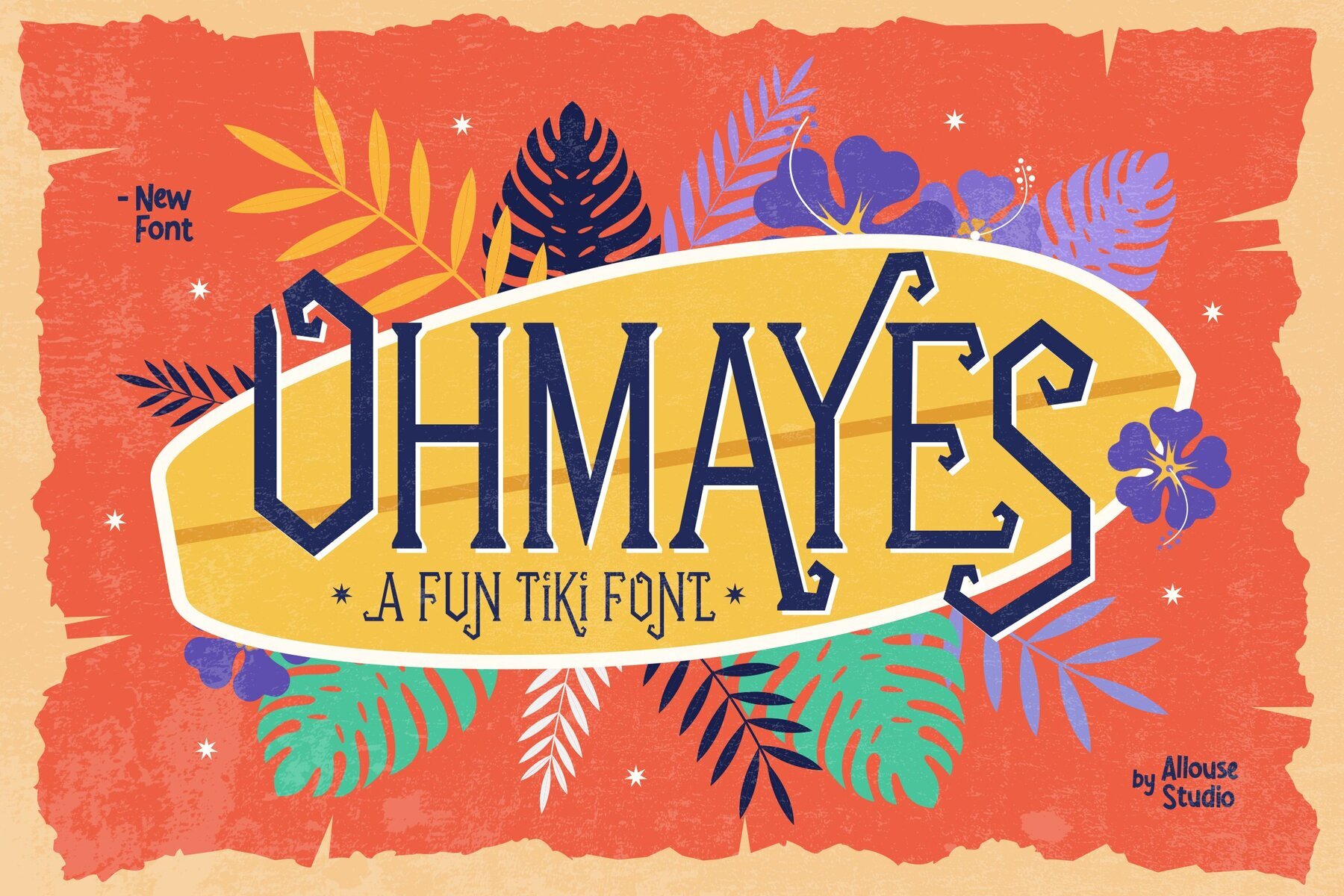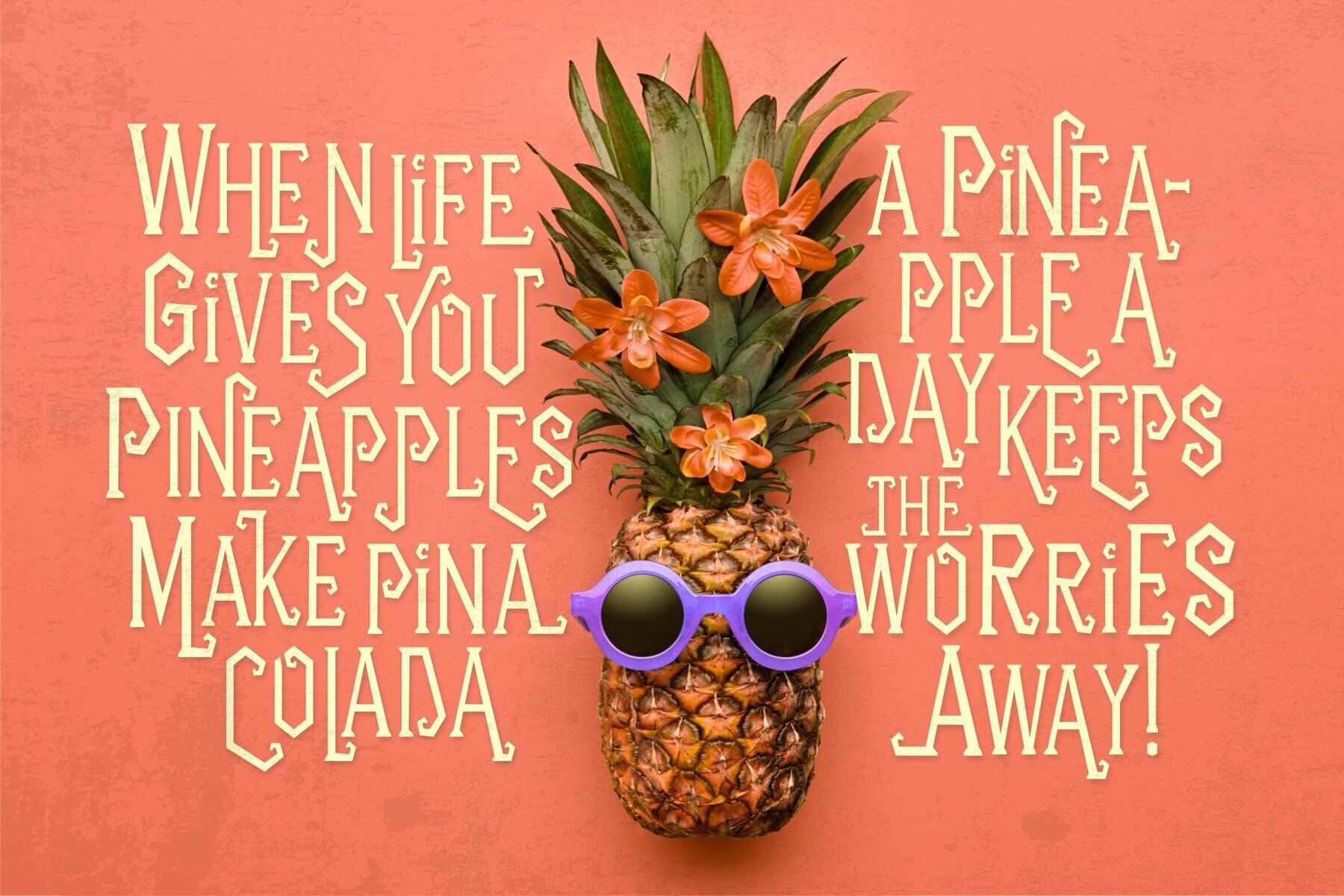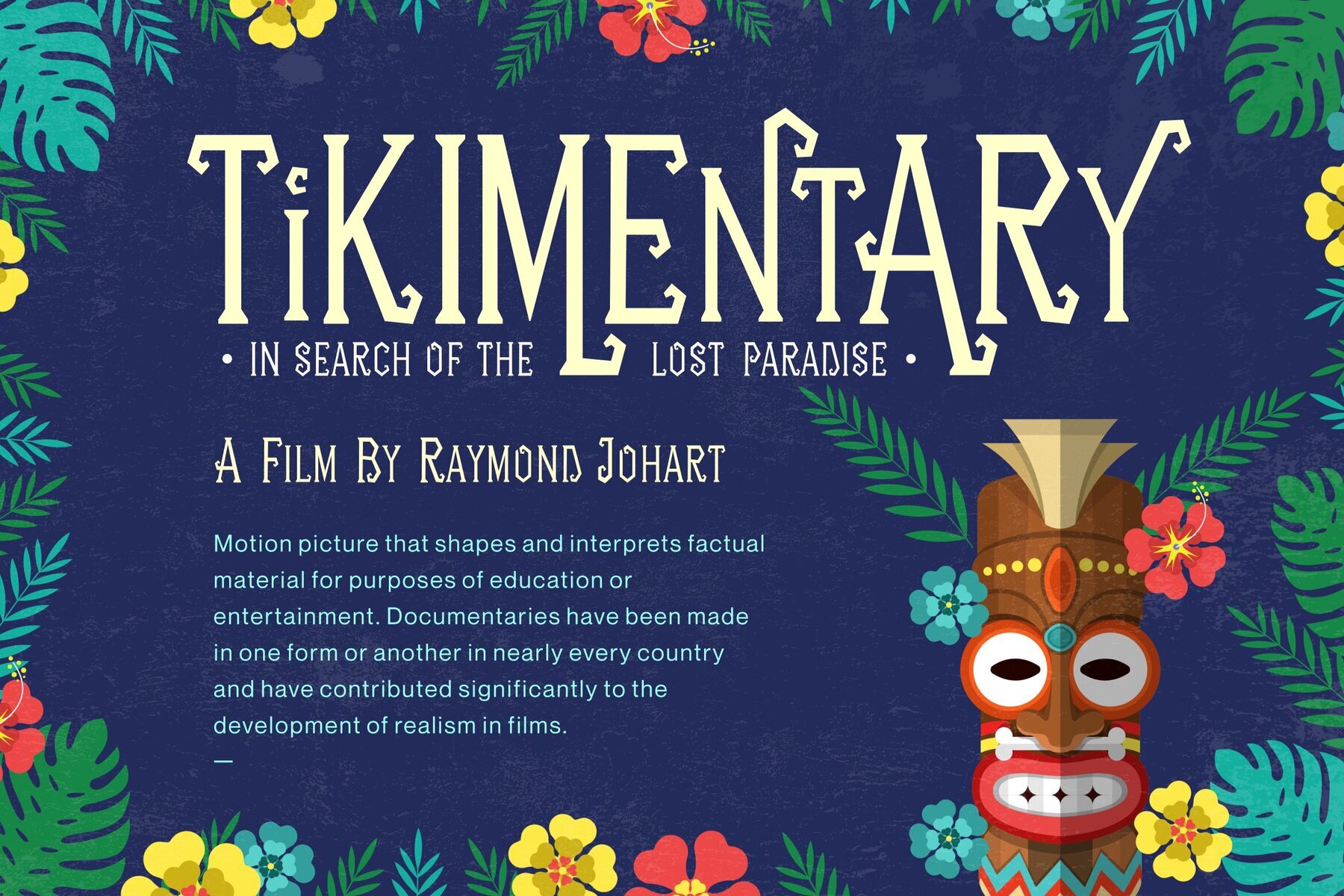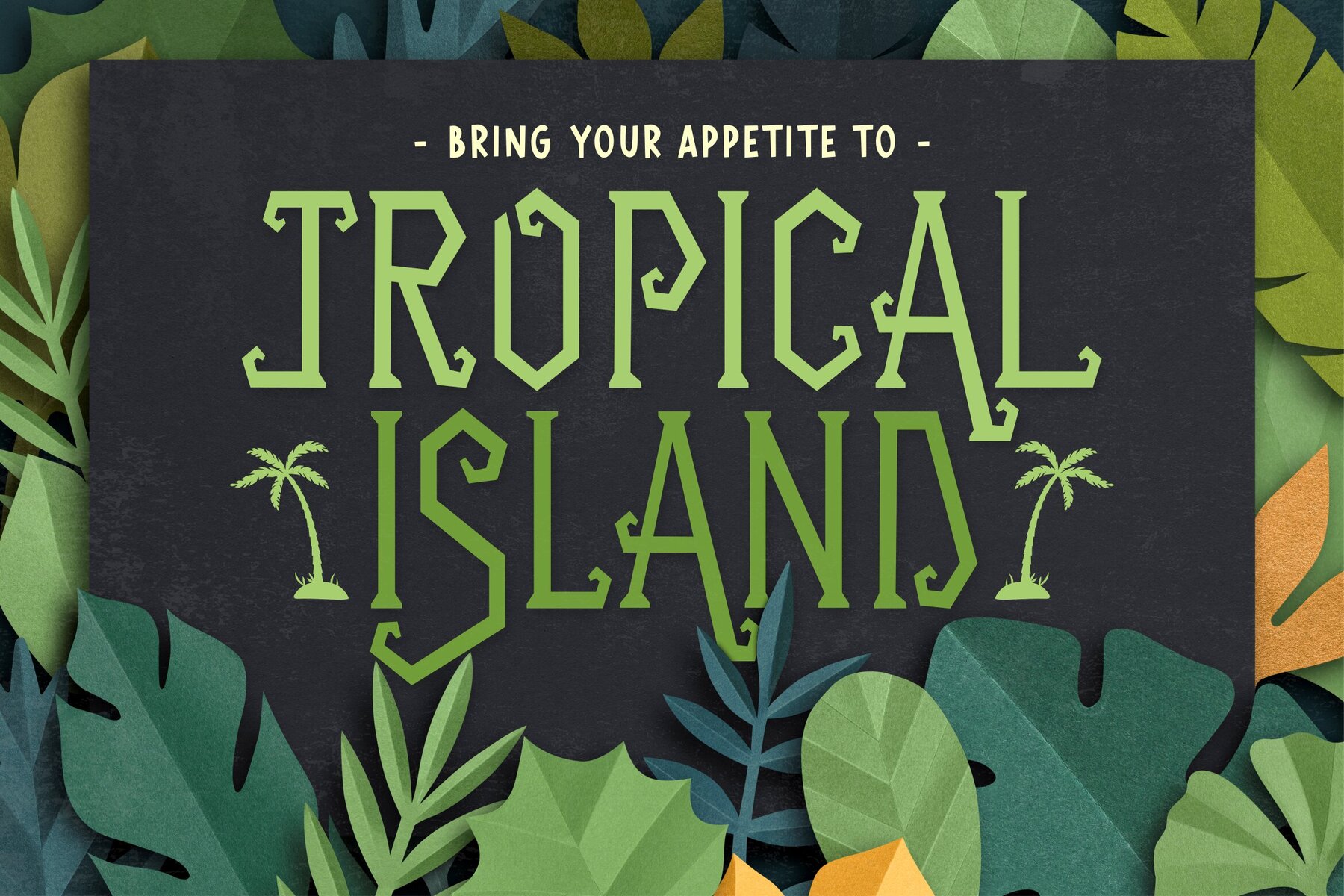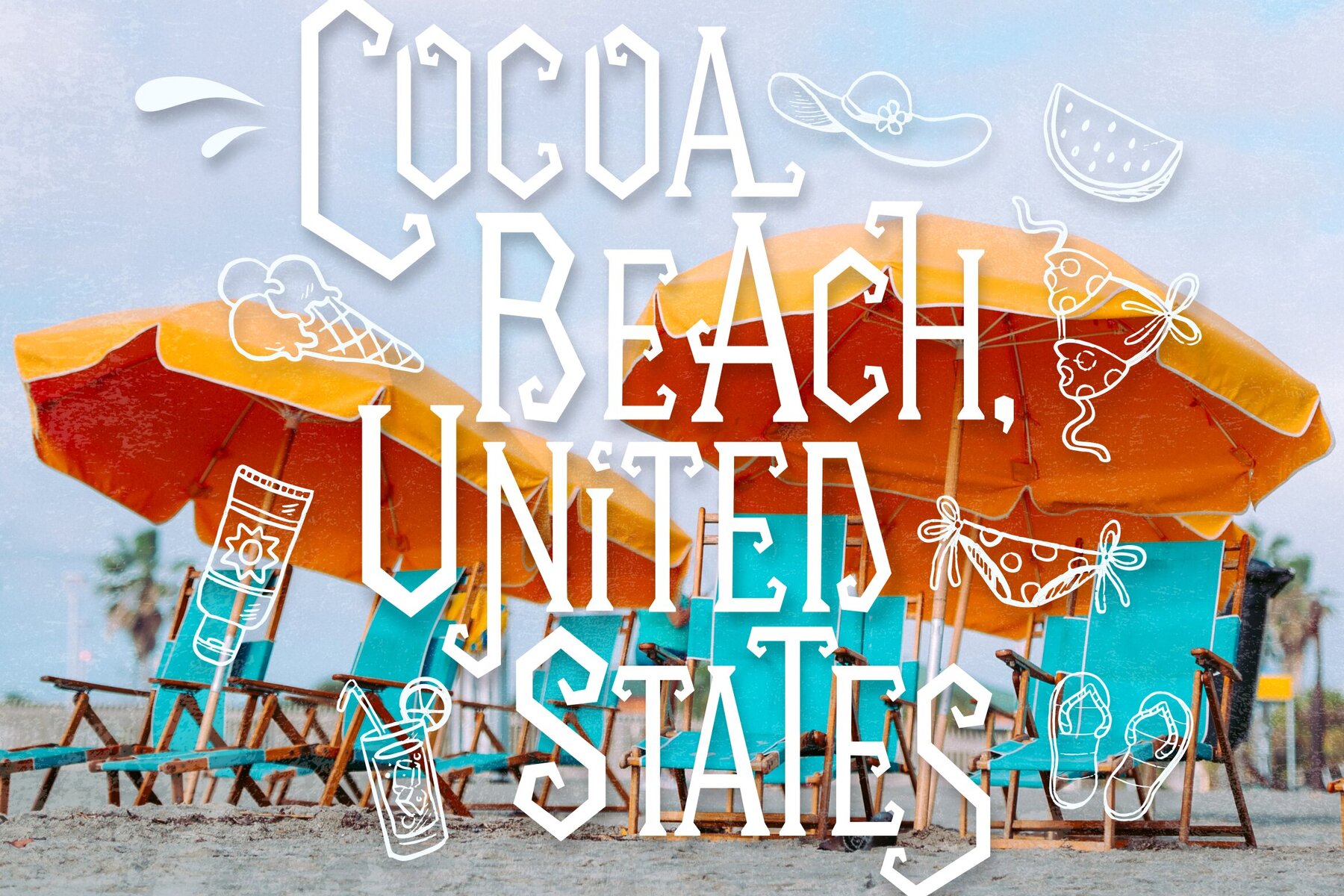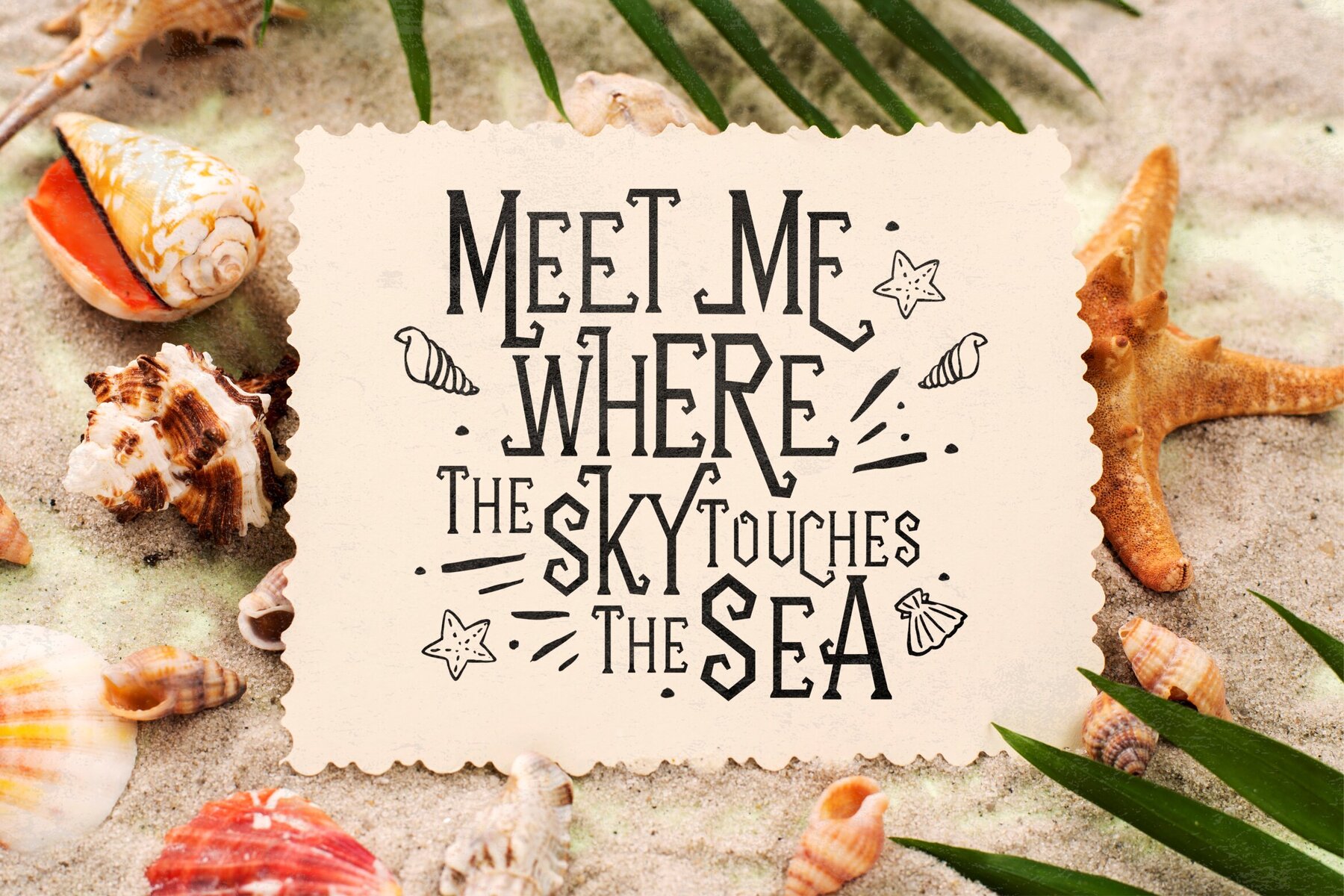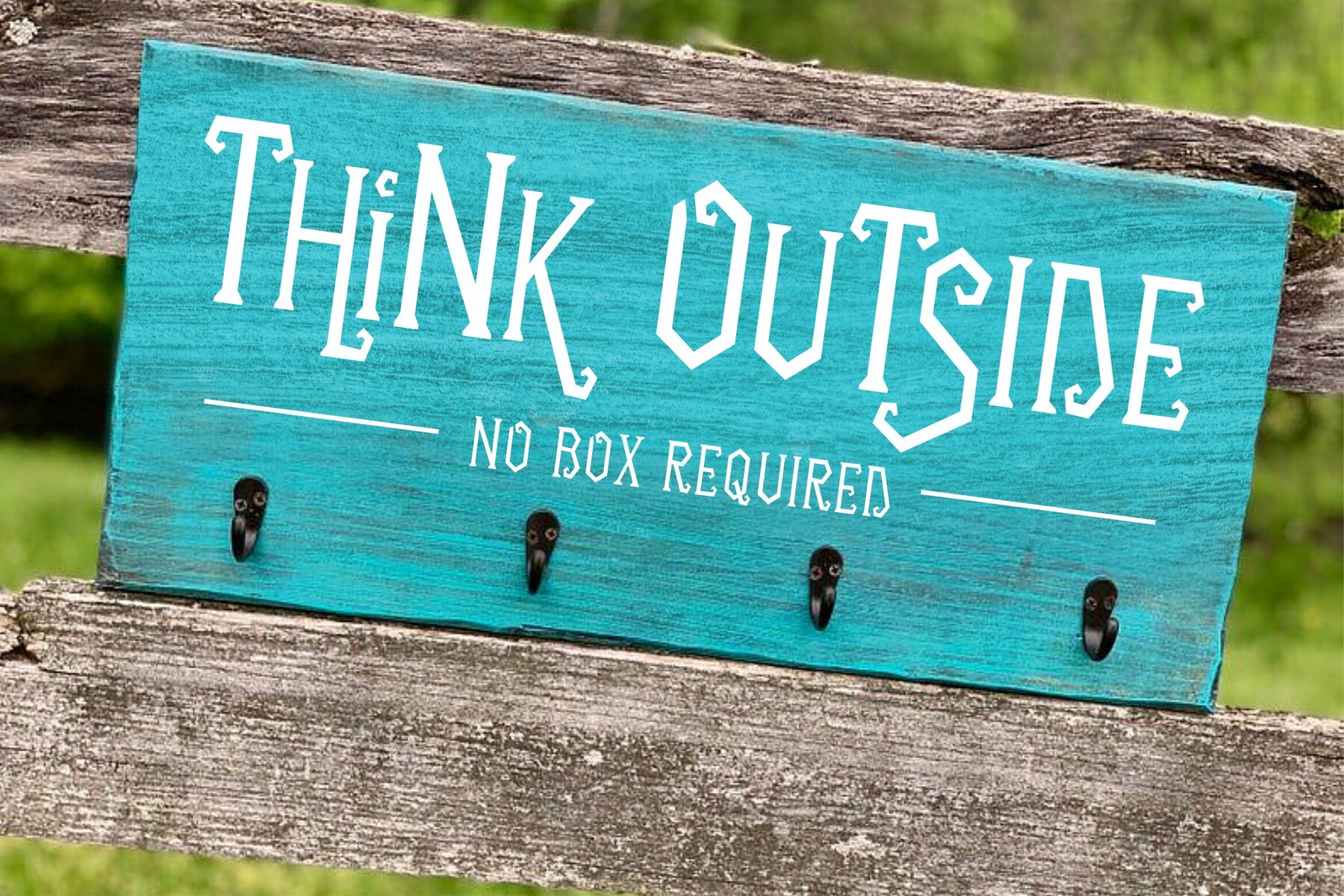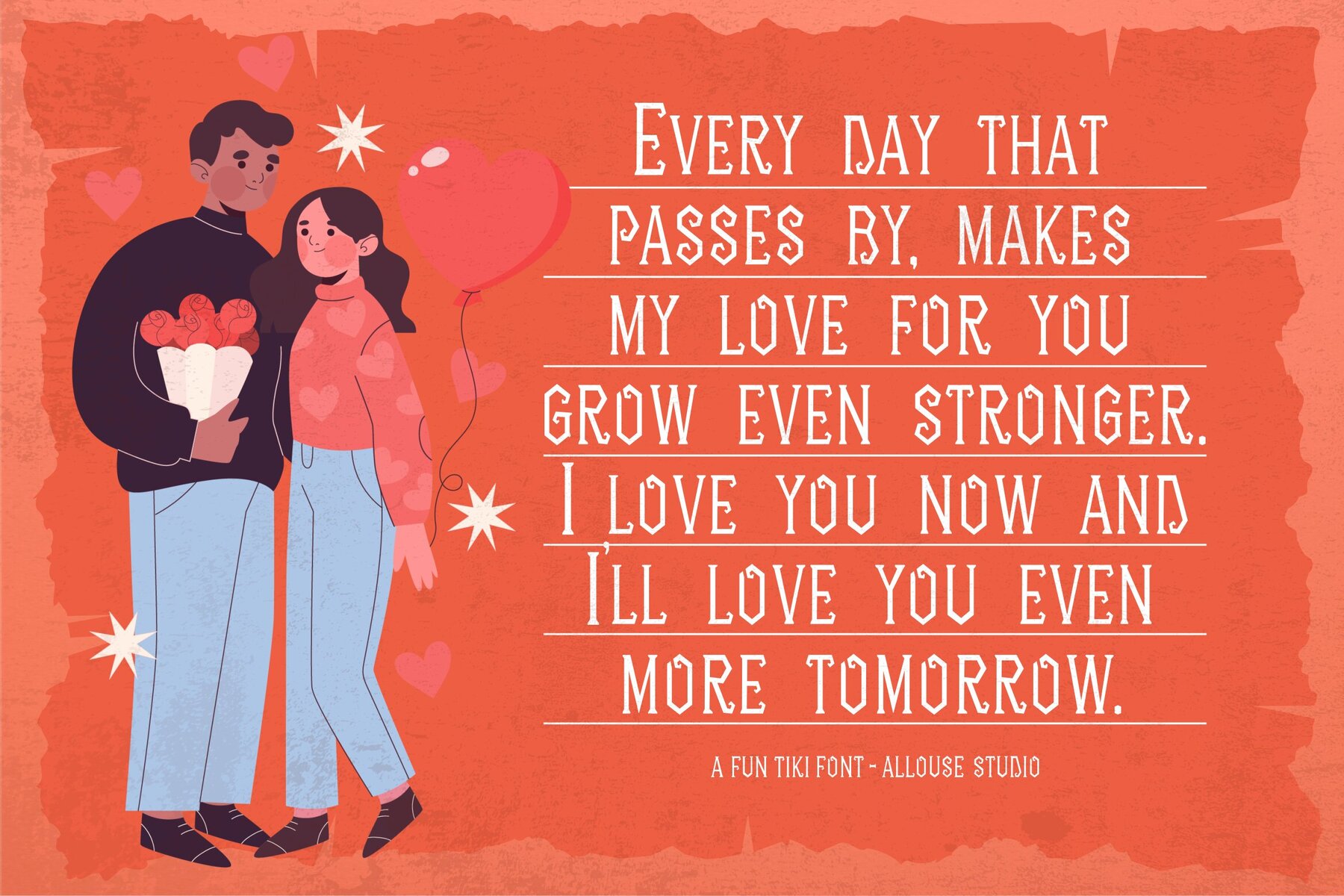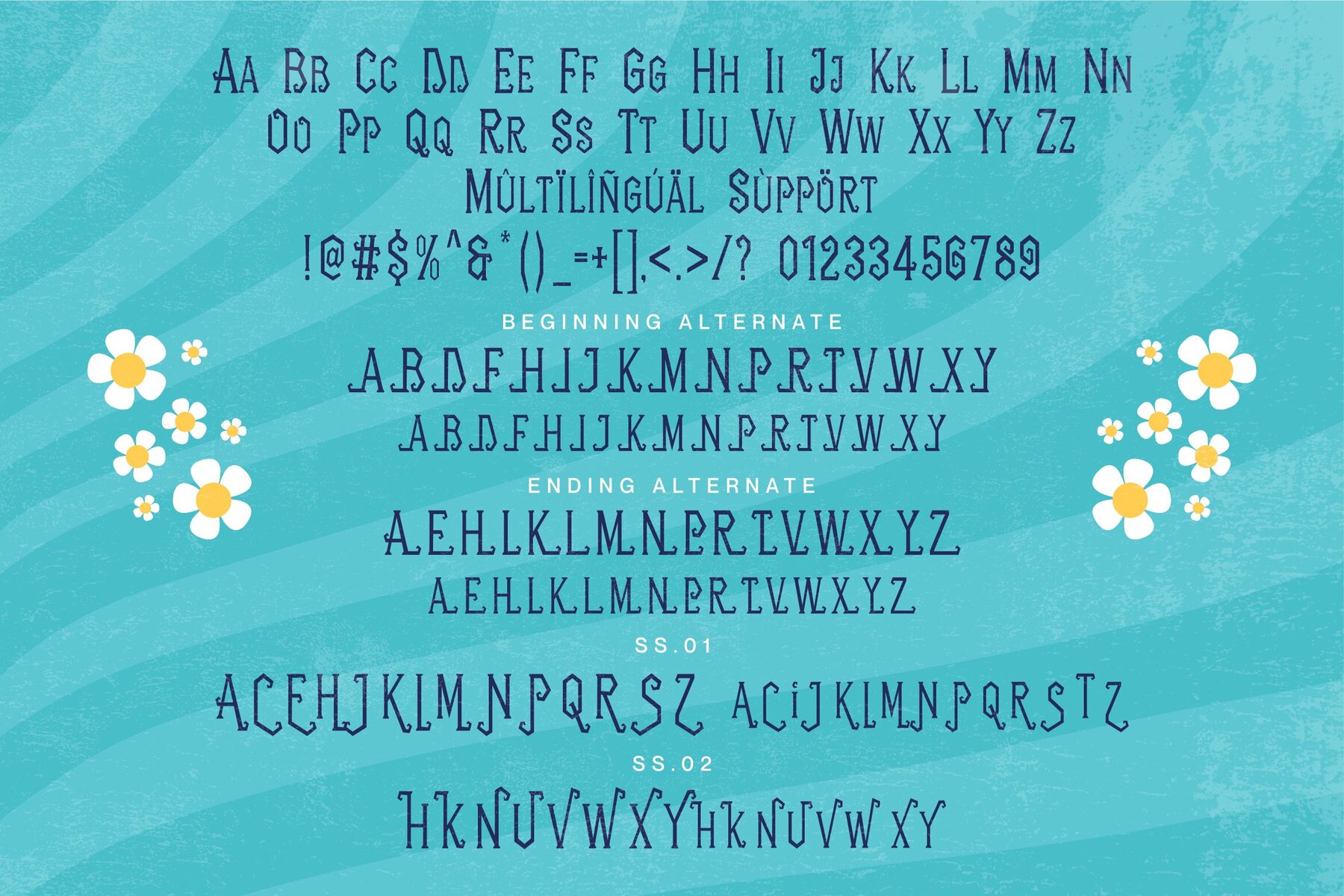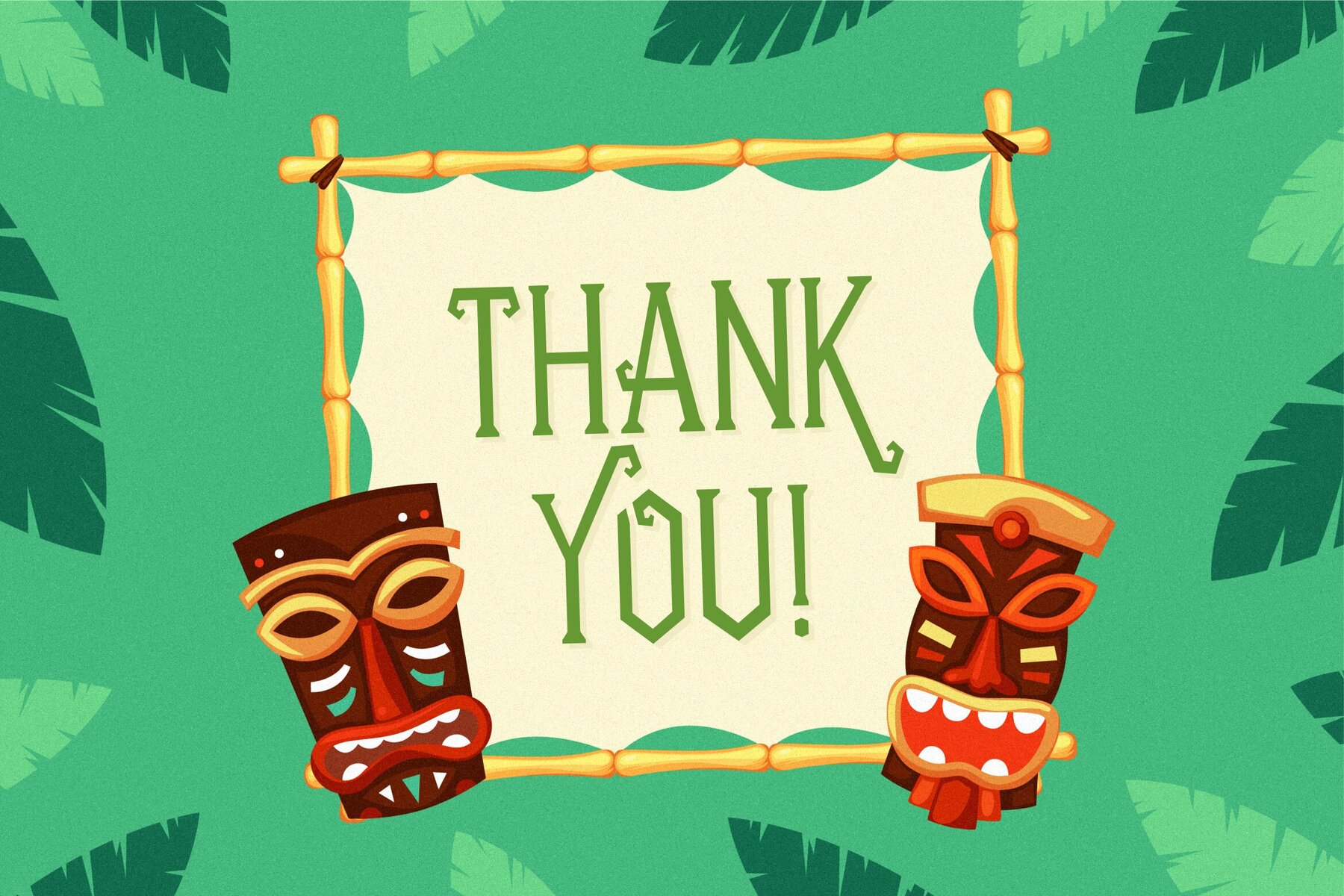
Ohmayes Font
Ohmayes Regular
Designed by Allouse.Studio, Ohmayes presents itself as a versatile typeface suitable for a broad spectrum of design projects. Its unique characteristics make it the ideal choice for projects ranging from product packaging and branding to editorial layouts in magazines. Its adaptability extends to digital and print media, seamlessly integrating with social media graphics or wedding invitations, where it adds a touch of elegance and uniqueness.Ohmayes: The Quintessential Typeface for Multi-platform Design